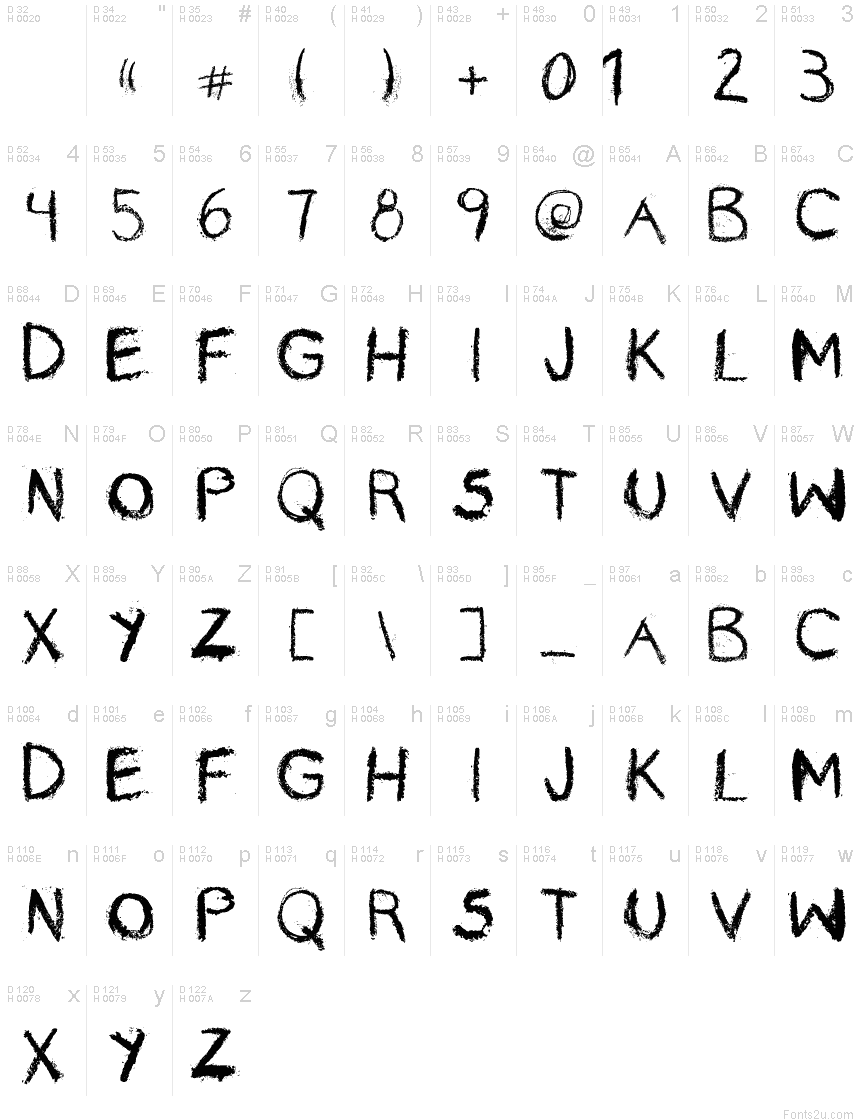
Rayando by High-Logic.com is a free distressed brush display font with scraped, uneven strokes and an unruly handmade outline. The letters look hastily painted and partly worn away.
Punk music, street art, and horror themes suit its abrasive texture, making it useful for concert posters, album packaging, and game graphics. Against photographs or illustrations, its broken edges can echo torn paper, ink splatter, or weathered walls as part of the artwork itself.
The typeface was created entirely by hand. I drew it with chalk and then inverted it: the black background became the letters, and the white became the background.